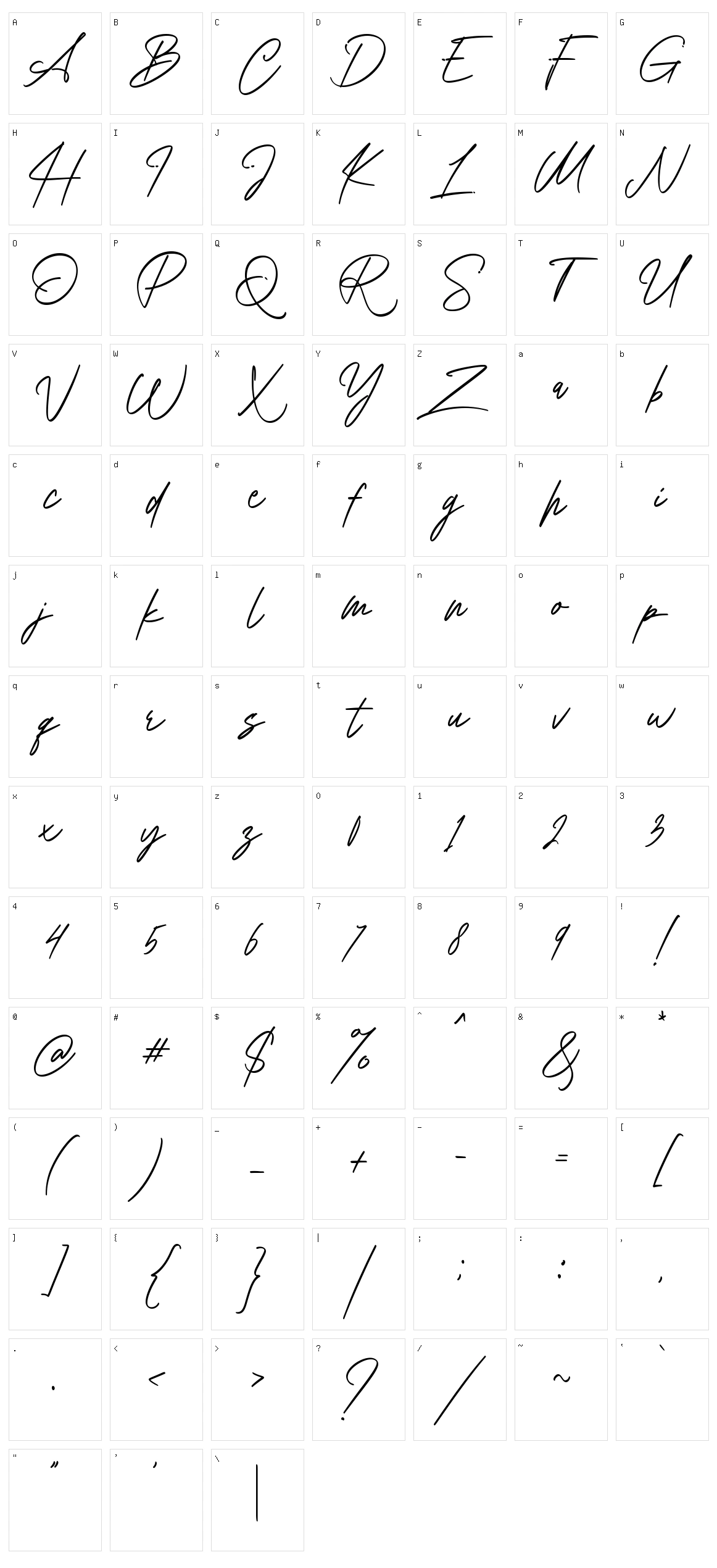
The free font Rollingtime is carefully designed by Fontherapy, showcasing a thoughtful balance of creativity and usability and falls under the Script font style. When you download the ZIP file, it contains only 28.95 KB of font files, making it lightweight and quick to download. Please review the license details below to understand permitted usage and distribution rights. If license information is not available, we recommend using this font for personal projects only or contacting the author directly for commercial usage permissions.